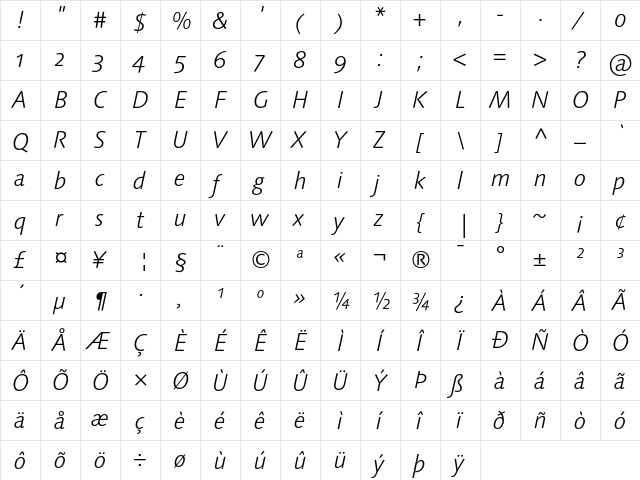
LinotypeSyntaxOsF LightIt Font Preview
LinotypeSyntaxOsF LightIt
Design Context for LinotypeSyntaxOsF Typeface
LinotypeSyntaxOsF is a composed and adaptable typeface that performs quietly and consistently across a wide range of design contexts. The delicate stroke weight brings airiness and refinement to layouts.
Pro Tip: Pair LinotypeSyntaxOsF with a font of contrasting weight or personality to build a more expressive typographic hierarchy.